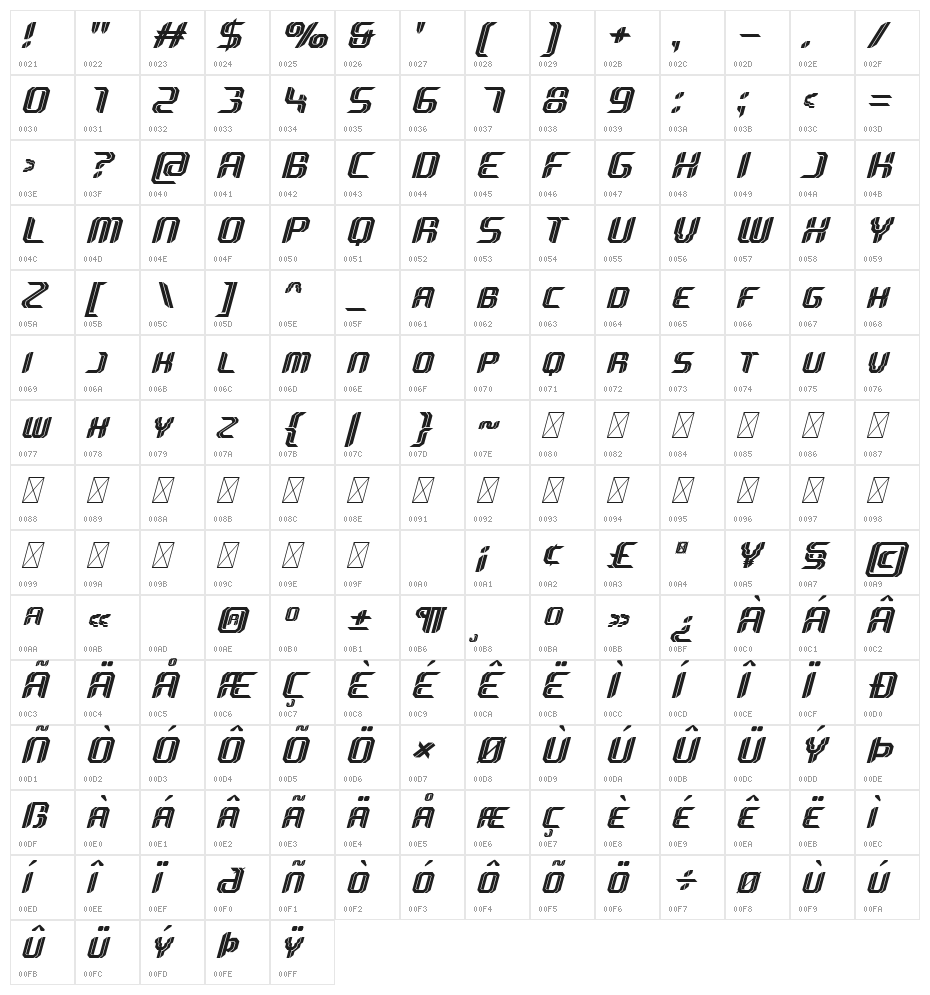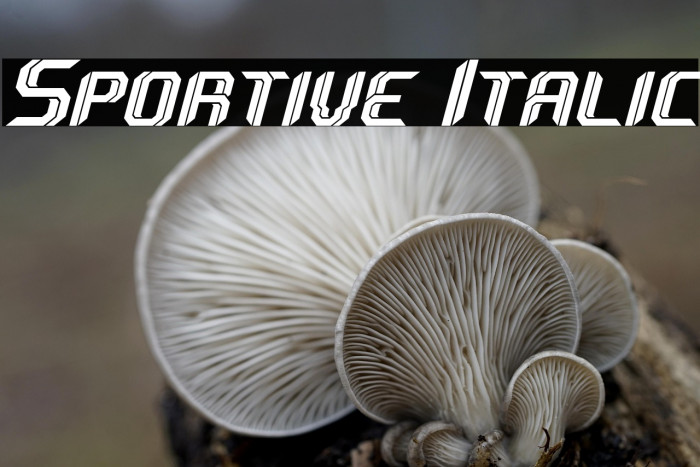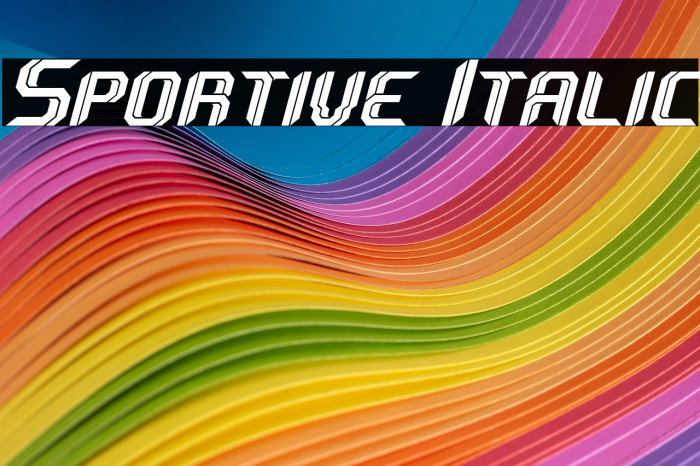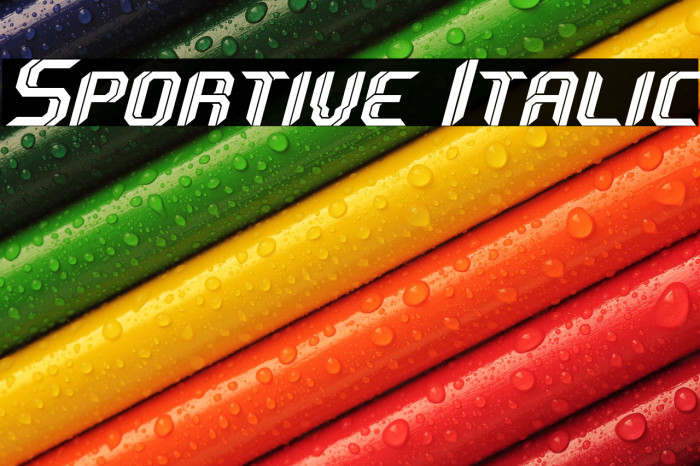
Sportive Italic Font
Sportive Italic Description
This font features a dynamic and sporty design, characterized by its italicized and angular letterforms. The strokes are bold and have a distinct slant, giving a sense of motion and speed. The geometric shapes and sharp edges contribute to a modern and energetic appearance. The font maintains a consistent weight throughout, with medium contrast between thick and thin strokes. Its unique style is suitable for projects that require a bold and impactful visual presence.
| Proposed Projects | Ideal for sports branding, dynamic posters, automotive advertisements, and energetic event promotions. |